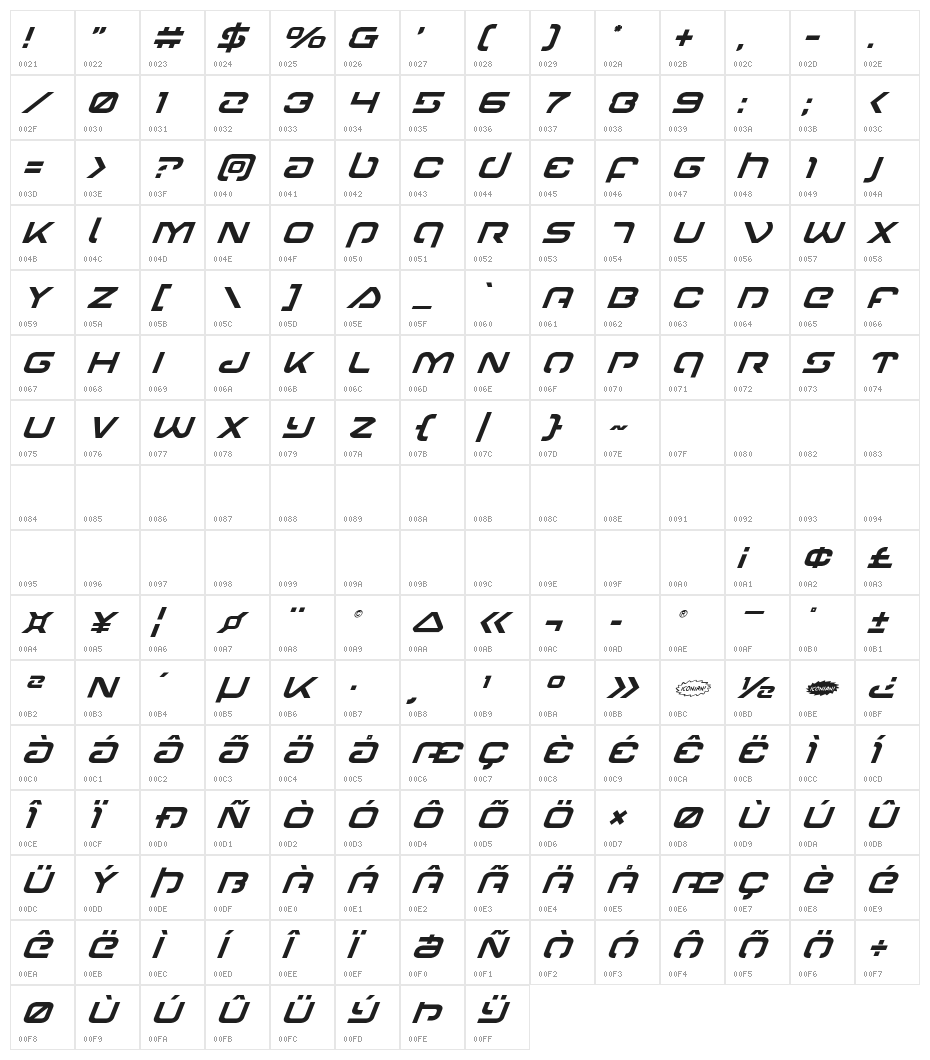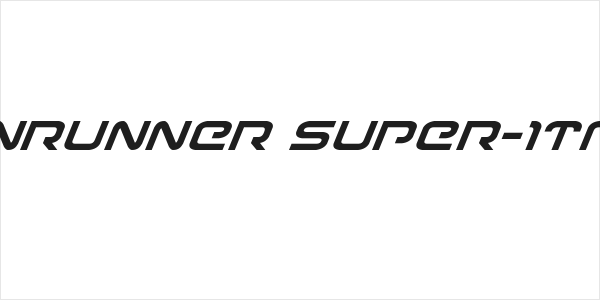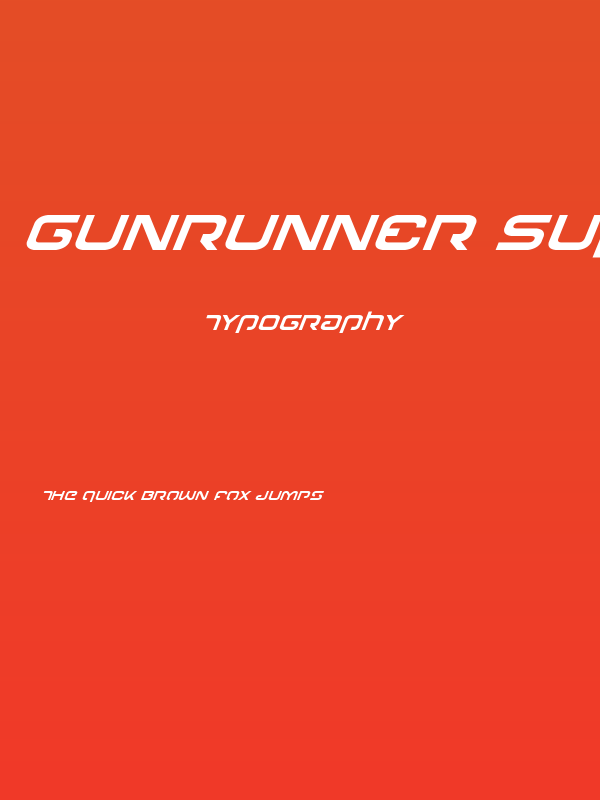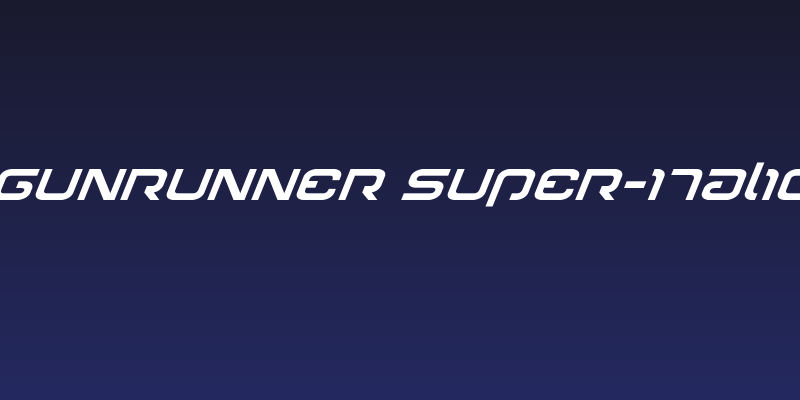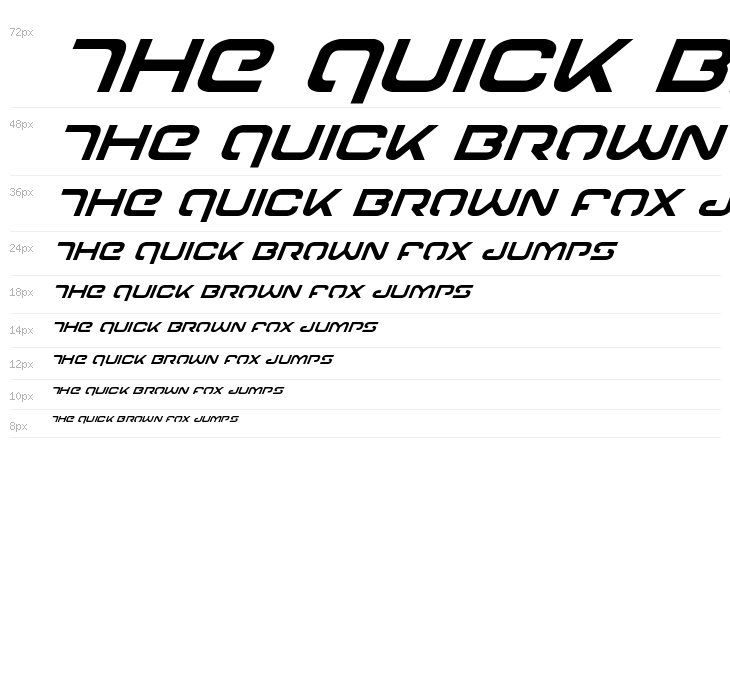
Gunrunner Super-Italic Font
Gunrunner Super-Italic Description
This font features a dynamic and futuristic design with a strong italic slant, giving it a sense of motion and speed. The characters are bold and angular, with sharp edges and a streamlined appearance that suggests a modern, high-tech aesthetic. The uppercase and lowercase letters maintain a consistent style, with a uniform width and spacing that enhances readability. The numerals and special characters are designed to match the overall theme, making the font versatile for various applications.